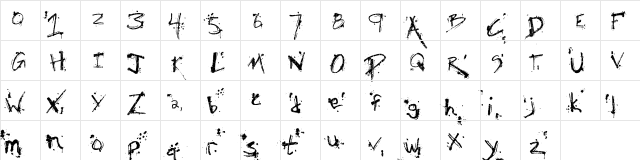
Fh_Obscene Regular
| Foundry | Dan Meyer (Fictionalhead) |
| Designer | Dan Meyer (Fictionalhead) |
Design Context for Fh_Obscene Typeface
Fh_Obscene is a composed and adaptable typeface that performs quietly and consistently across a wide range of design contexts.